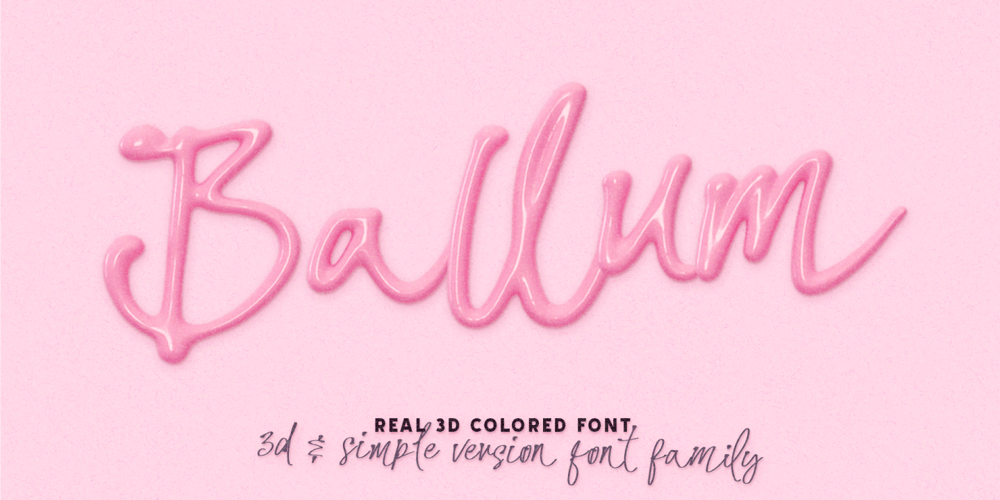
Ballum Font Family was designed by Lauritta Ivanova and published by Luxfont. Ballum contains 5 styles and family package options. Get ready for a font revolution with the Ballum SVG script color font family. This is a unique calligraphic color font. Writing immediately with 3D realistic letters is now real. Create a stunning visual effect.Features:- Real Plastic effect- Extras & ligatures- Alternates characters- KerningIMPORTANT:- Check the glyphs in the font before buying!- SVG fonts contain raster letters.- Check it www.colorfonts.wtf- Try a FREE DEMO version before buying.ld.luxfont@gmail.com